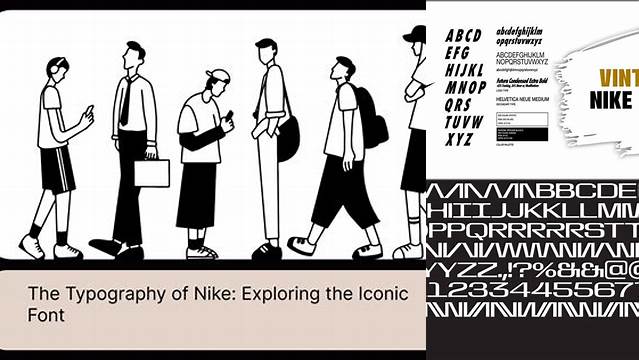
Nike Font: Unveiling The Iconic Typography
Hey everyone! Let's dive into the awesome world of typography and, specifically, the Nike font. This isn't just some random typeface; it's a cornerstone of a global brand, instantly recognizable, and a major player in the world of design. Today, we're going to unpack everything about the Nike font – from its history and design principles to how it's used and where you can find it. Buckle up, guys, because we're about to get font-tastic!
Nike Font: A Deep Dive into the Swoosh's Typography
The Nike font is more than just letters and numbers; it's an embodiment of the brand's values: performance, innovation, and a touch of rebellious spirit. The typeface, or the collection of fonts used, has evolved over the years, but certain elements remain consistent, creating a cohesive and instantly identifiable visual identity. The story of the Nike font is a story of branding, design, and cultural influence. We’ll explore the core aspects that make this font a legend, and we'll even touch on the subtle nuances that contribute to its overall impact. The goal is to give you, the reader, a full understanding of the typeface. So, are you ready? Let's do this!
The Evolution of the Nike Font
The evolution of the Nike font is a fascinating journey that mirrors the brand's ascent to global dominance. In its early days, Nike experimented with different fonts, but the need for a consistent visual identity quickly became apparent. The iconic Futura font, with its clean lines and modern aesthetic, played a significant role in the brand's early branding efforts. Over time, Nike developed customized versions and variations of fonts, tweaking them to better align with their evolving brand image. This constant refinement underscores Nike's commitment to innovation not just in athletic gear, but in every aspect of its presence. There are specific fonts that were used in the past, which might be interesting for you to see; you can view them online! The evolution also involved a shift from simple text to creative designs. This change marked a significant moment for the Nike brand because it enabled a richer and more expressive brand identity. It's like, who knew a font could do so much?
Key Characteristics and Design Principles
So, what exactly makes the Nike font so recognizable? It all comes down to key characteristics and design principles. First off, many of the primary fonts used by Nike feature bold, clean lines and a contemporary feel. These fonts often have a slightly condensed structure, which lends itself well to athletic imagery. The letterforms are usually carefully weighted and spaced, ensuring optimal legibility even at various sizes. The choice of sans-serif typefaces further reinforces the brand’s modern approach. In addition to the font itself, the creative use of this font is also a significant aspect of the overall branding. The placement of text on Nike products is often strategic, using creative layouts and bold designs to catch the eye. It’s all about creating a sense of movement and energy, just like the athletes who wear Nike gear. These characteristics work together to represent the brand's core values of performance, innovation, and a competitive spirit. It is a carefully considered decision to build the brand identity. They didn't just pick any font!
Identifying the Nike Font in Action
Identifying the Nike font in action is like playing a fun game of spot-the-difference. Keep your eyes peeled the next time you're out and about, and you'll start to see it everywhere. From the sleek lettering on sneakers to the bold typography on billboards and commercials, the Nike font is an inescapable component of modern visual culture. There are several examples of how this font is used, such as the brand's logos, product packaging, and advertising campaigns. You'll frequently see it on apparel, accessories, and in all sorts of digital media. The beauty of the Nike font is its versatility; it adapts well to various formats and contexts. The Nike font can also be seen online, especially in the brand's official websites and social media channels. Understanding these real-world applications will help you appreciate the impact this font has on the brand's overall identity. Also, in marketing, the Nike font is a powerful tool for creating a consistent and memorable brand image, which ultimately drives customer recognition and loyalty. The more you know about this, the easier it will be for you to recognize it!
Exploring the Different Nike Font Styles
Alright, let's dig into the different flavors of the Nike font family. The brand doesn’t just use one single font; it employs a family of typefaces to meet its varied design needs. Each style, from the bold headlines to the more subtle body text, has been meticulously chosen and adapted to convey specific messages and create different emotional effects. The versatility in fonts is also a great strategy, as the brand can choose which font style best represents a given concept. It's like, instead of just having one friend, you have a whole crew! This approach ensures that the Nike brand can be both consistent and flexible in its visual communication. We're going to break down the core font styles used by Nike, along with where you might encounter them. Let's dive into the details!
Primary Fonts Used by Nike
When we talk about the primary fonts of Nike, we’re usually referring to those used most prominently across the brand. Think of these as the stars of the show – the fonts that you immediately associate with the Swoosh. A prominent font is Futura. Futura is a geometric sans-serif font that has been a staple in the Nike arsenal. It is known for its clean, minimalist aesthetic and modern feel. Nike often uses Futura Bold for headlines and other prominent text. Another primary font is Gotham. Another sans-serif, Gotham is known for its versatility. It's commonly used in the brand’s marketing materials and product packaging. Also, the ITC Avant Garde Gothic is an interesting sans-serif font. This font is known for its unique letter shapes and is used in various contexts to convey a sense of energy and movement. Then, there's the custom-designed fonts. Nike has a habit of creating custom fonts, often modifying existing typefaces to better reflect its brand identity. These custom fonts give Nike a unique visual voice and help it stand out from the crowd. These are just a few of the core fonts that make up the Nike font family. The next time you see a Nike ad or product, pay close attention to the font used, and you'll begin to understand the brand’s approach to typography.
Nike Font Variations and Customizations
Nike isn't afraid to mix things up. Over the years, they have introduced various Nike font variations and customizations to maintain a fresh and dynamic look. These variations are designed to add depth to the brand's visual language. You can see the bold versions, the condensed styles, and sometimes even italicized versions of the core fonts. These variations are all about expressing a range of moods and highlighting different aspects of the brand. Nike designers often tweak the spacing and weight of the font to optimize it for a specific medium or application. This can include subtle changes to the kerning (the space between letters) or the weight of the font to make it stand out more. Another example is the use of alternative characters. The brand will often incorporate unique symbols or special characters in the font to make it unique. The custom fonts have their own personalities. These details help to ensure that the Nike font is instantly recognizable and aligned with its messaging. Nike's font variations are a testament to its constant pursuit of innovation and its dedication to creating a compelling visual identity. They are also often used to make the brand stand out from the crowd.
How Nike Uses Font Styles in Different Media
How does Nike use its fonts? The answer is strategically and intentionally across different media platforms. From print to digital, Nike understands the importance of tailoring its typography to each medium. Let’s take print advertising, for example. Nike uses bold and impactful fonts, usually headlines, to grab attention. The font sizes are usually large and combined with stunning visuals. Then, in digital environments, Nike adapts its fonts to enhance the user experience. The font's legibility and readability are often considered for website design and social media posts. On social media, they often use short, eye-catching captions to grab attention quickly. Font selection also influences the tone of the message, whether it is energetic, inspirational, or focused on the product. Finally, each font style contributes to the overall brand narrative. The consistent use of carefully chosen fonts creates a cohesive and memorable visual identity across all channels. It's all about making a statement, no matter where you are. And in each medium, Nike ensures that the fonts are consistent with their brand values.